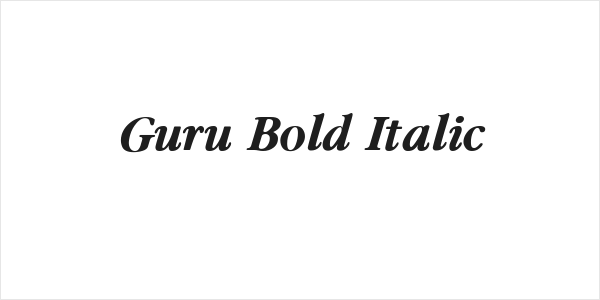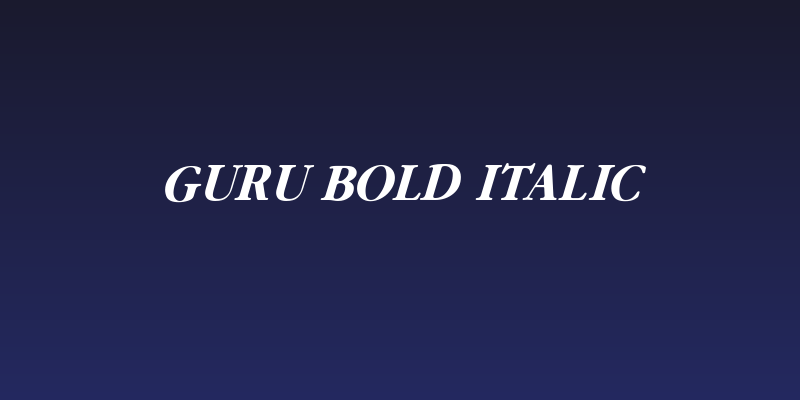
Guru Bold Italic Font
Guru Bold Italic Description
This font exhibits a bold and italicized style, combining strength with elegance. The characters are well-defined with a noticeable slant, giving a dynamic and forward-moving appearance. The strokes are thick, providing a strong presence, while the italicization adds a touch of sophistication. The serifs are pronounced, enhancing the classic feel of the typeface. This font is versatile, suitable for making impactful statements while maintaining readability. The numerals and special characters are consistent with the overall bold and italic theme, ensuring uniformity across different uses.
| Proposed Projects | Ideal for branding, headlines, posters, and editorial design where a bold statement is needed. |